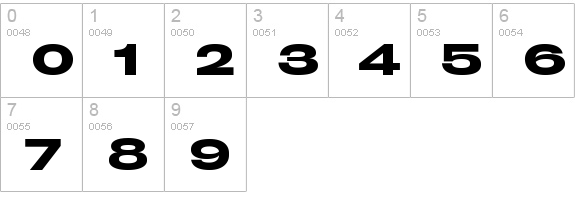
Rhode-SemiboldExtended Font Details
Rhode-SemiboldExtended font is a modern and elegant typeface that exudes sophistication and power. With its bold and extended letterforms, this font commands attention and makes a bold statement. Designed with precision and attention to detail, Rhode-SemiboldExtended font offers a unique blend of strength and grace. Its sleek and elongated characters are perfect for headlines, titles, and branding materials that require a strong visual impact. This font is not only visually striking but also versatile, making it suitable for a wide range of design projects. Whether you're creating a logo, designing a poster, or crafting a website, Rhode-SemiboldExtended font will add a touch of elegance and professionalism to your work. One of the best features of Rhode-SemiboldExtended font is that it is freely available to download at FontsMarket.com. This means that you can easily access and use this font in your projects without any hassle. FontsMarket.com is a reputable platform known for its vast collection of high-quality fonts, and Rhode-SemiboldExtended font is no exception. By downloading Rhode-SemiboldExtended font from FontsMarket.com, you not only gain access to a remarkable typeface but also save money as it is available for free. This font is a valuable addition to any designer's toolkit, as it combines style, versatility, and affordability in one package. So, if you're looking for a font that will make a lasting impression and elevate your design projects to new heights, look no further than Rhode-SemiboldExtended. Download it for free at FontsMarket.com and experience the power and beauty of this remarkable typeface.